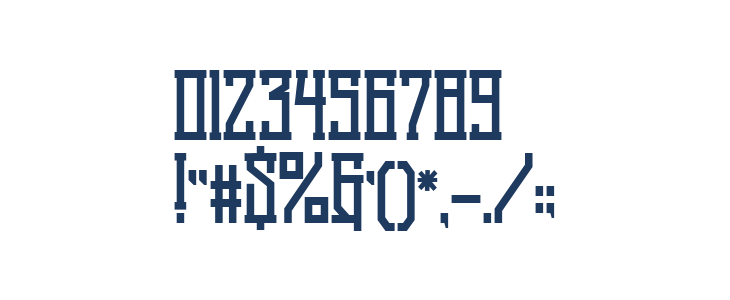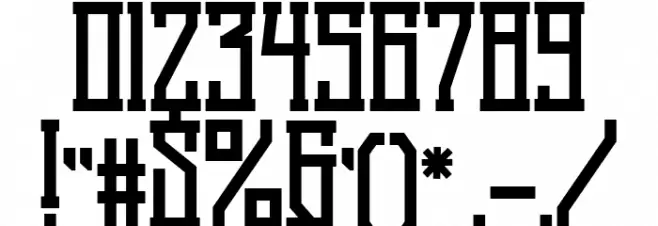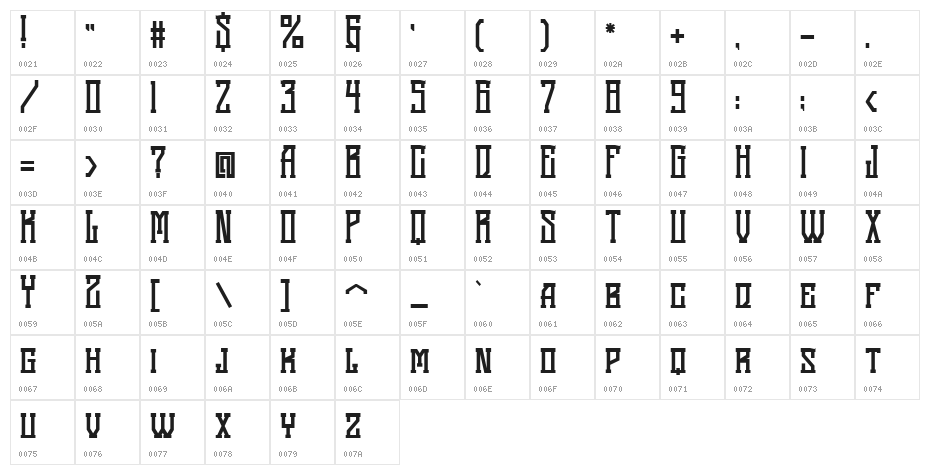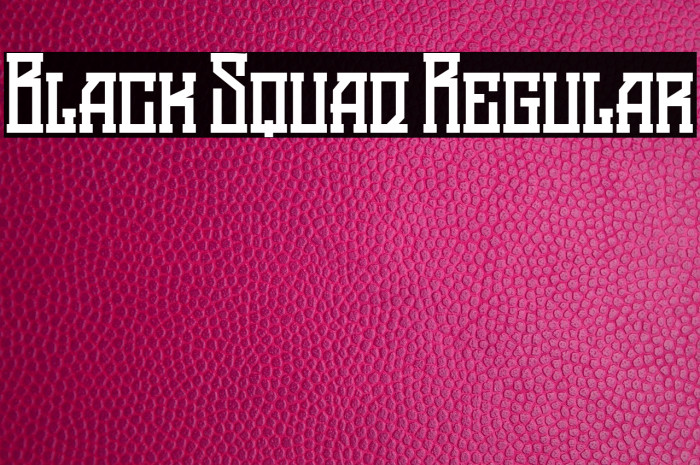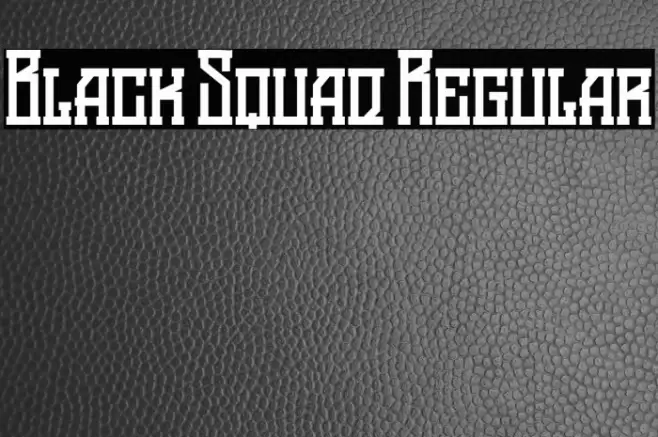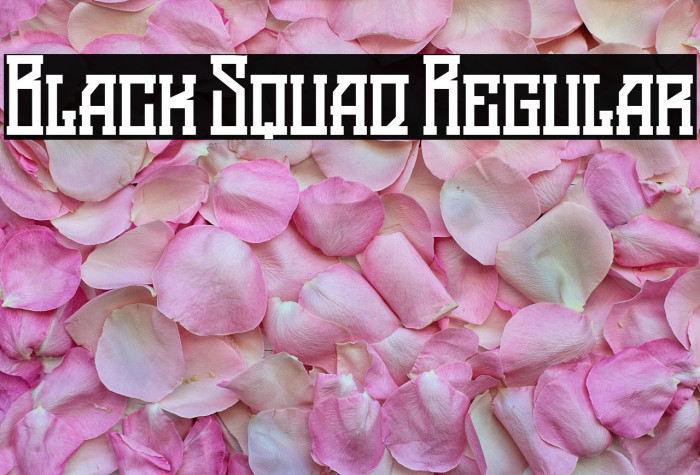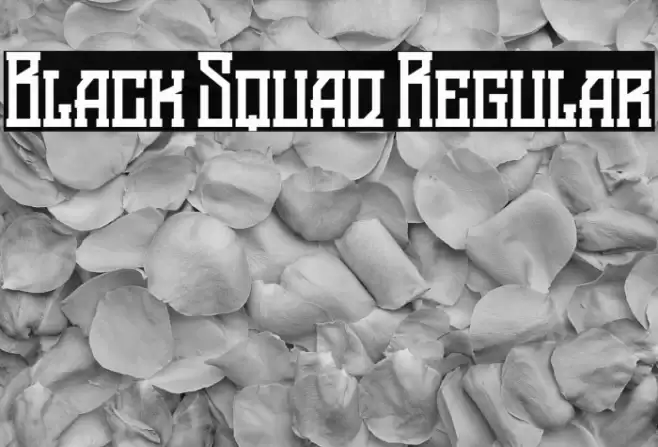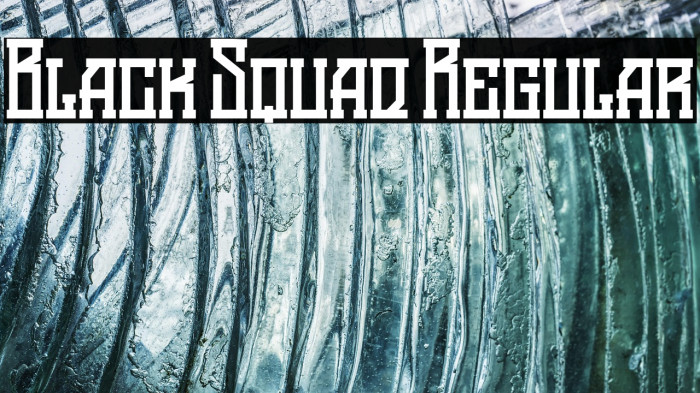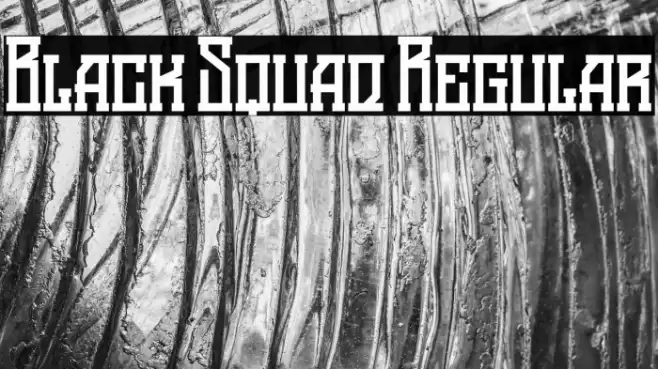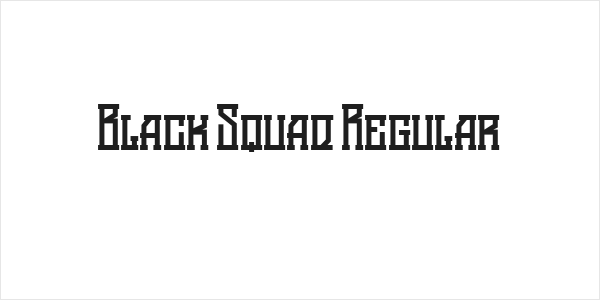
Black Squad Regular Font
Black Squad Regular Description
This font features a bold, geometric design with a strong, angular structure. The characters are constructed with thick, uniform strokes that give it a commanding presence. Its blocky appearance is reminiscent of digital or pixelated styles, yet it maintains a modern and clean aesthetic. The uppercase and lowercase letters share a consistent height, contributing to a uniform look across text. The numerals and special characters are designed with the same boldness and angularity, ensuring cohesion throughout. This font is ideal for projects that require a strong visual impact and a contemporary feel.
| Proposed Projects | Ideal for video game titles, tech branding, posters, and digital media. |